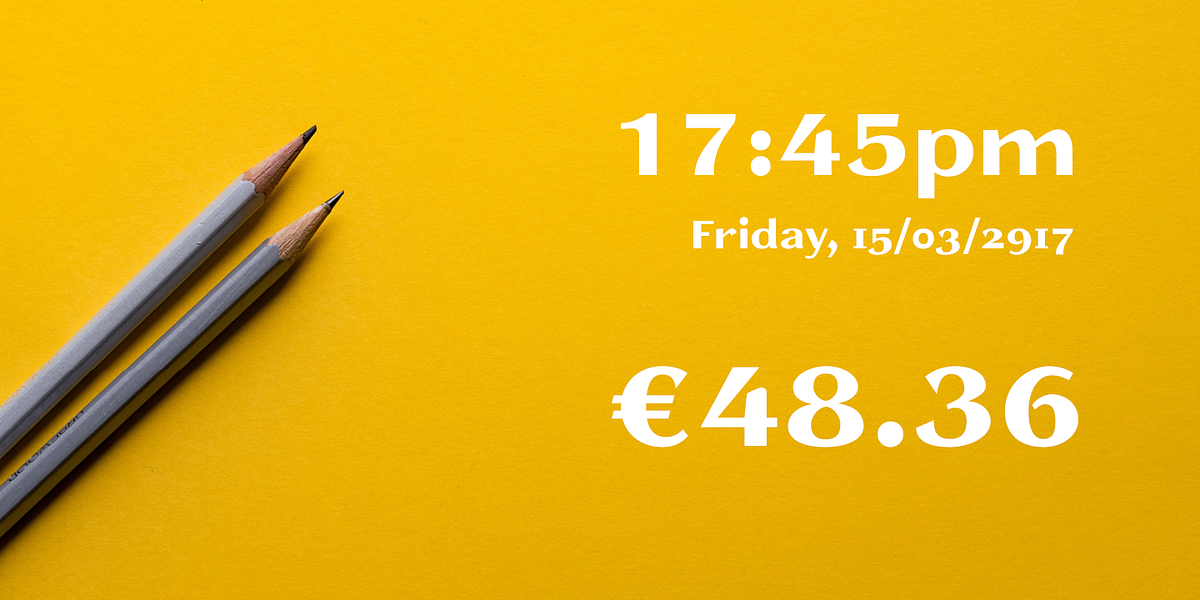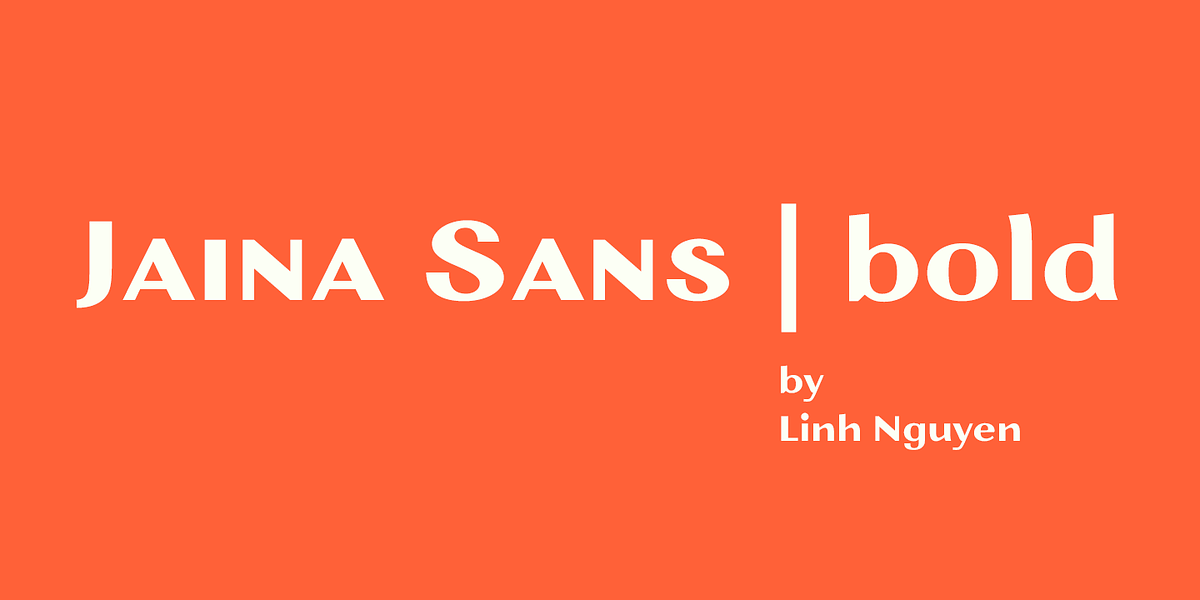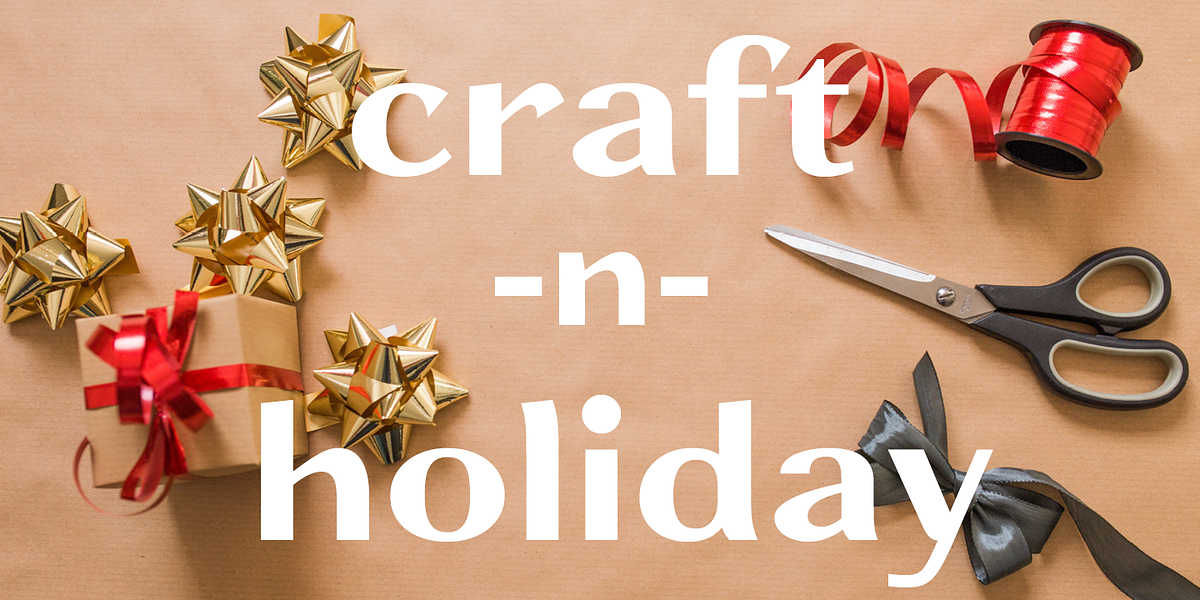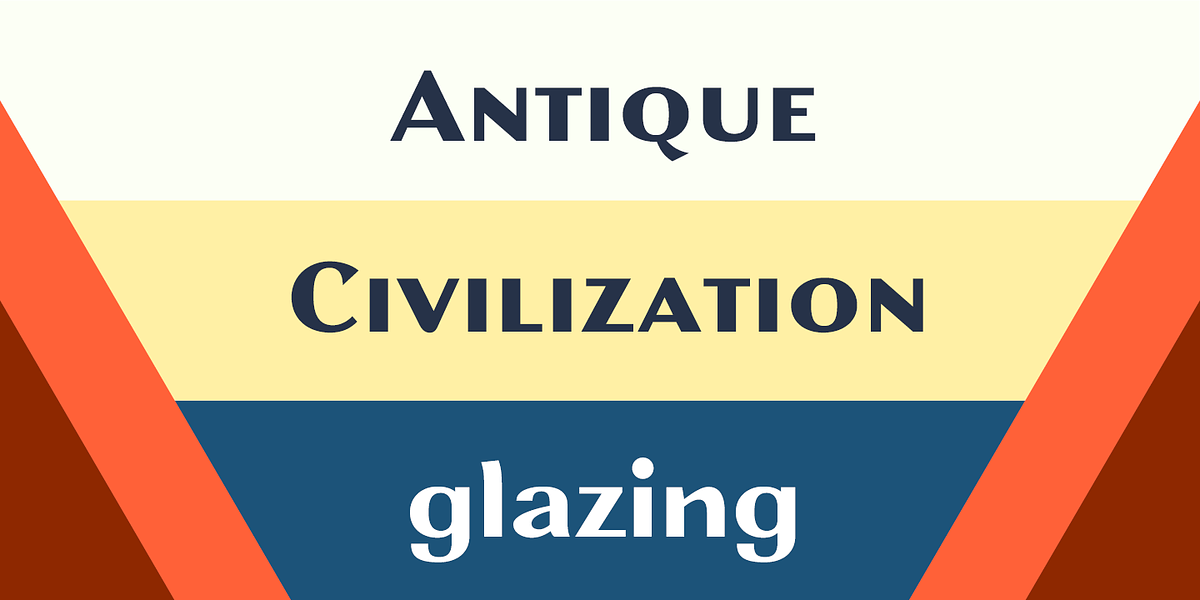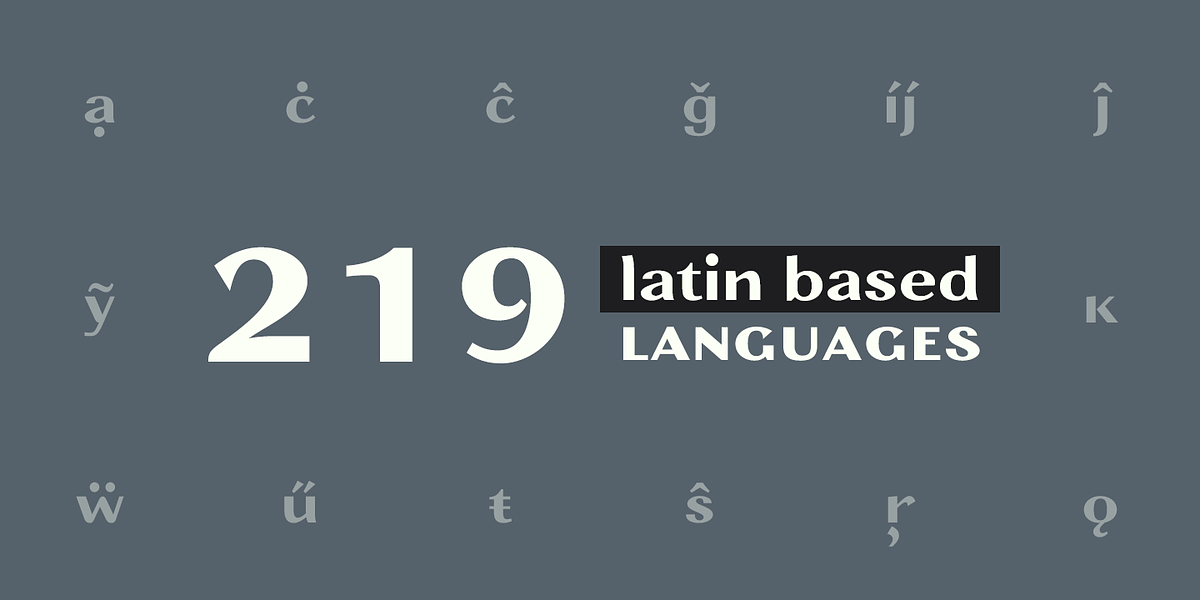
Jaina Sans
Jaina Sans is a bold geometric sans serif font characterized by its high contrast strokes and expanded width. It evokes a sense of modernity and impact, making it suitable for headlines, display applications, and branding.